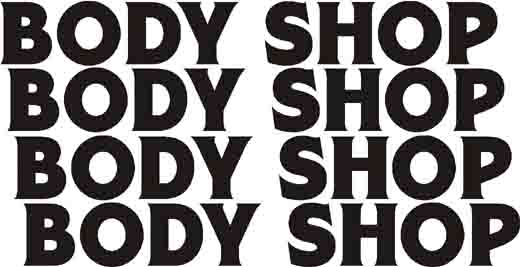
Working With Beveled Fonts
The New Edoras Group from Signfonts.com- The first of its kind four part Beveled Font to create special effects dimensional lettering. Use layered vinyl in two, three, or four colors. Create stunning dimensional effects for Large Format Digital Printing using Fountain Fills.
Remember that the Edoras Chisel works ONLY as a two part font with Edoras Regular and is not meant to be used in conjunction with any of the bevels. For information on using Chiseled fonts see the tutorial, Working With Chisel Fonts.
THERE ARE SOME KNOWN ISSUES WITH MULTI PART CHISEL FONTS AND SOME SIGN SOFTWARE. This is not just an issue with Signfont Chisels, but with all Multipart Fonts. Signmakers using Signlab or Cassmate/Inspire may have problems with multipart fonts matching up correctly. However, if you design in another program such as CorelDRAW or Adobe Illustrator, simply convert all fonts to curve before importing.
1. Using the Base Font, Edoras Regular, type in the word of phrase to be used in your graphics.
If you are going to make alterations such as kerning, stretching or skewing, do it now. Keep stretching and skewing to a minimum.
2. Make four copies and select all. Using the Align and Distribute tool, center horizontally and vertically.
3. Now all four copies are stacked and perfectly aligned.
If you are using CorelDraw you may select the first copy and hit the + three times.
4. Select the top copy and change it to Edoras Bevel 1. You will not see the font until you change the color. Start with white or a very light shade to indicate a highlight.
5. Select the next copy and change it to Edoras Bevel 2, then change the color for your shaded bevel.
6. Change the next copy to Edoras Face. Change the color and you now have 4 fonts stacked to create beautiful beveled effects. For stacking vinyl, registration is made easier with clear application tape.
Use your Fountain Fill Tool to create even more striking effects with Beveled fonts.